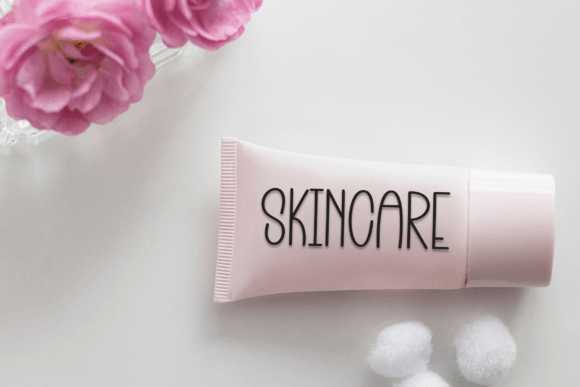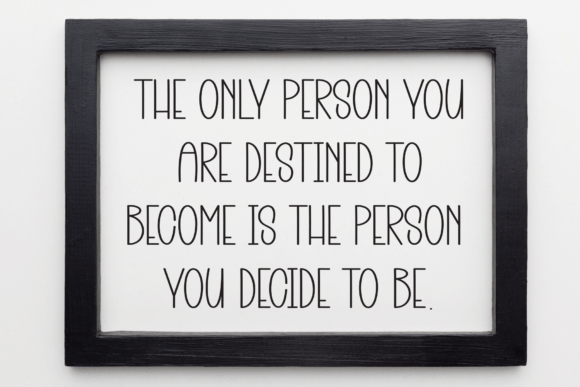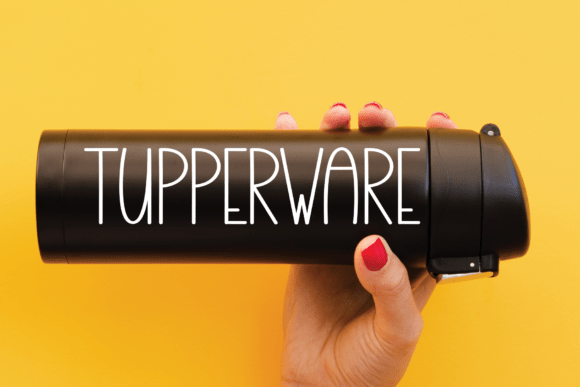
Introduction to Creative Desinger Font
As a designer, there’s nothing quite like the thrill of landing on a perfect font for a project. You’ve got a vision, a concept, and a message to convey – and the right typography can make all the difference. It was exactly that moment when I stumbled upon the Creative Desinger Font, and I knew I had to share it with fellow creatives.
This casual and neat display font exudes a fresh, friendly vibe that’s perfect for packaging, posters, and social media graphics. With its clean lines and relaxed structure, it’s a design resource that adds charm and clarity to projects while maintaining a polished appearance. Whether you’re working on a high-quality design project or just need a quick solution for your next social media post, the Creative Desinger Font is an invaluable asset.
What I love about this font is its versatility – it’s free to download and comes with a transparent background, making it a breeze to work with. With the Creative Desinger Font, you can focus on what matters most: bringing your creative project to life with style and sophistication.
Key Features of Creative Desinger Font
- High-quality design resource ideal for creative projects with a transparent background, allowing for seamless integration into any design.
- Comes in a range of sizes, from 12px to 72px, making it suitable for various design applications, from web design to print media.
- Resolution-independent design ensures crisp and clear text display on high-resolution screens, maintaining its quality across different devices.
- Unique, creative font style designed to add a touch of elegance and sophistication to any design project.
Honest Review: Creative Desinger Font
As a designer, I’m always on the lookout for high-quality design resources to elevate my creative projects. The Creative Desinger Font is one such resource that caught my attention.
Here’s what works well:
- ✨ High quality font with a unique and modern design
- ⚠️ Limited character set, which may not be suitable for complex designs
- ⚠️ No transparent background option, which can make it difficult to use in certain design scenarios
Overall, I’m impressed with the Creative Desinger Font. While it may not be perfect, it’s a great resource for designers looking for a high-quality, modern font to add some creativity to their projects. With a little bit of planning, it can be a valuable addition to any design toolkit.
Tips for Getting the Most Out of Creative Desinger Font
Use the font with a transparent background to create a high-quality design resource for your creative project. You can also experiment with different font sizes and styles to add visual interest to your design.
The Creative Desinger Font is ideal for use in design projects that require a high-quality, creative font. Some common use cases include:
- Designing a logo or branding materials
- Creating a social media graphic or advertisement
- Designing a brochure or flyer